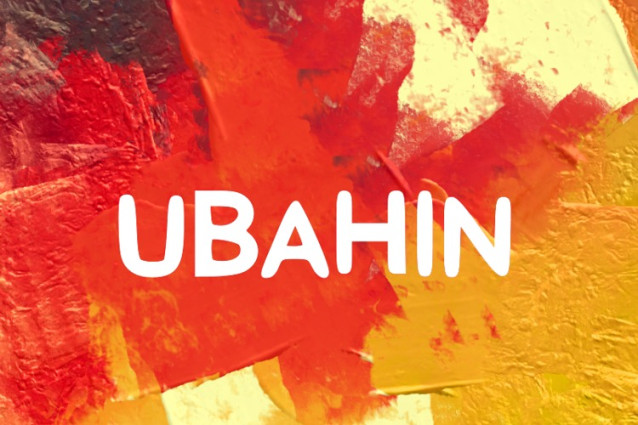
Ubahin Font
Ubahin Font is a chunky, comic, and cartoon display font. With its neat and joyful personality, this font will enhance any project you wish to create!